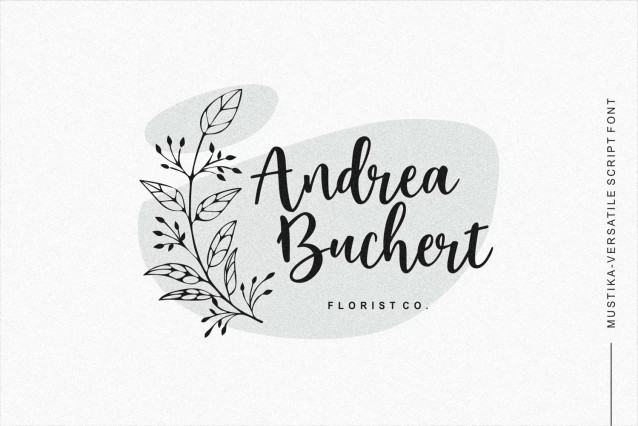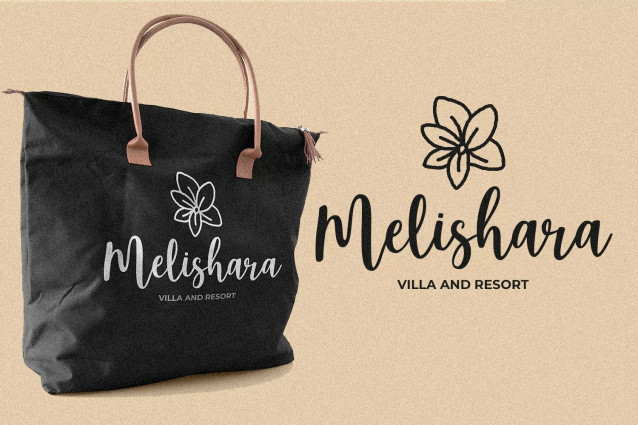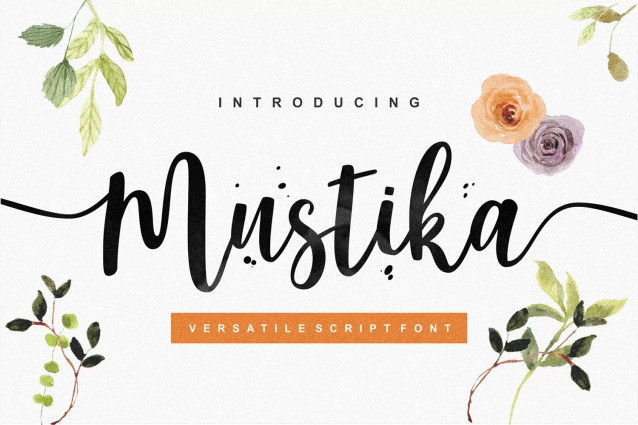
Mustika Handwriting Font
Mustika Handwriting Font best fresh handmade calligraphy font for wedding design, greeting cards, branding materials, business cards, quotes, posters, and more!